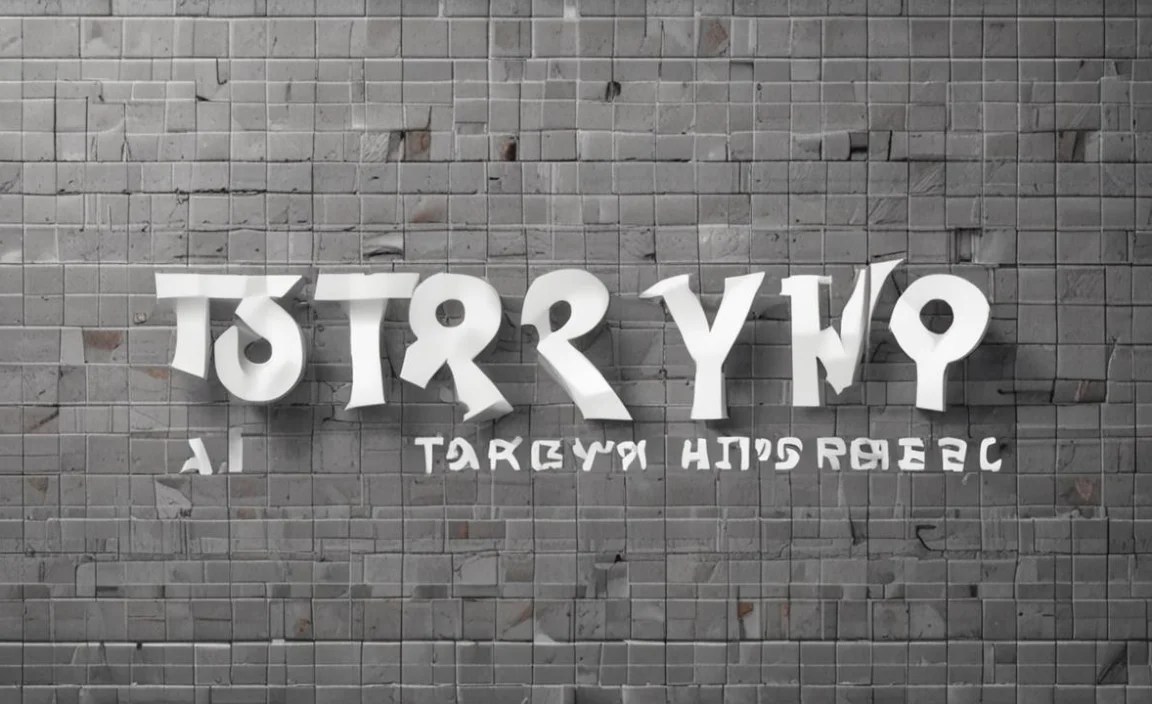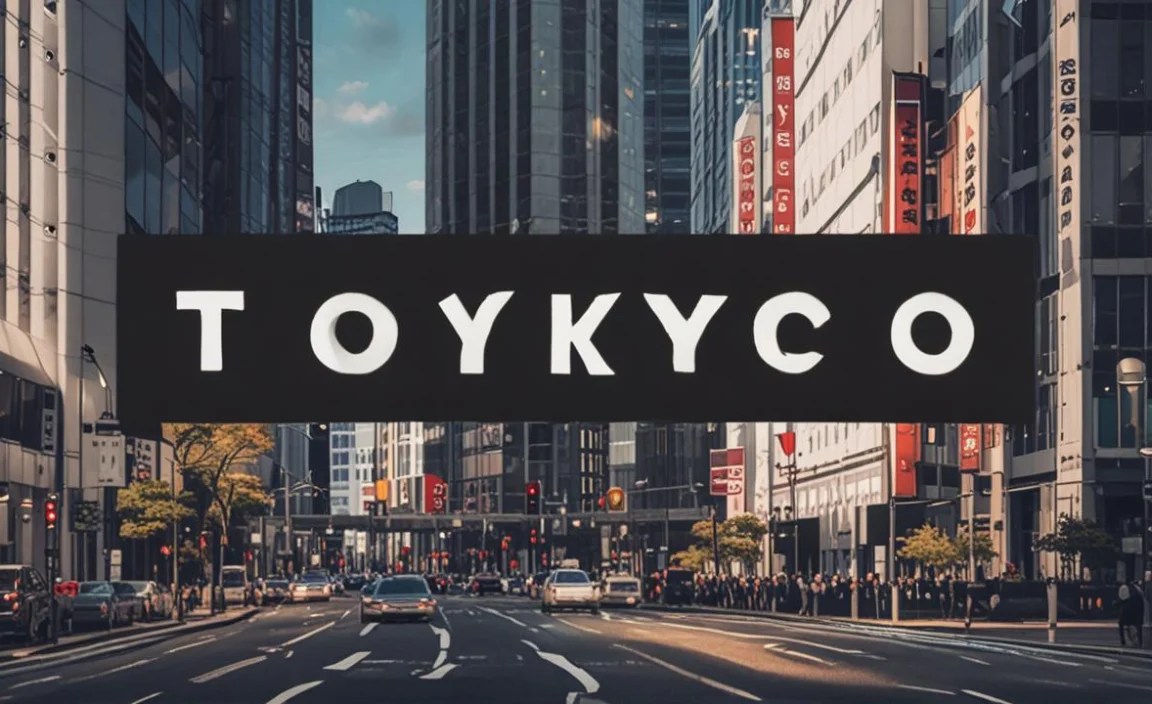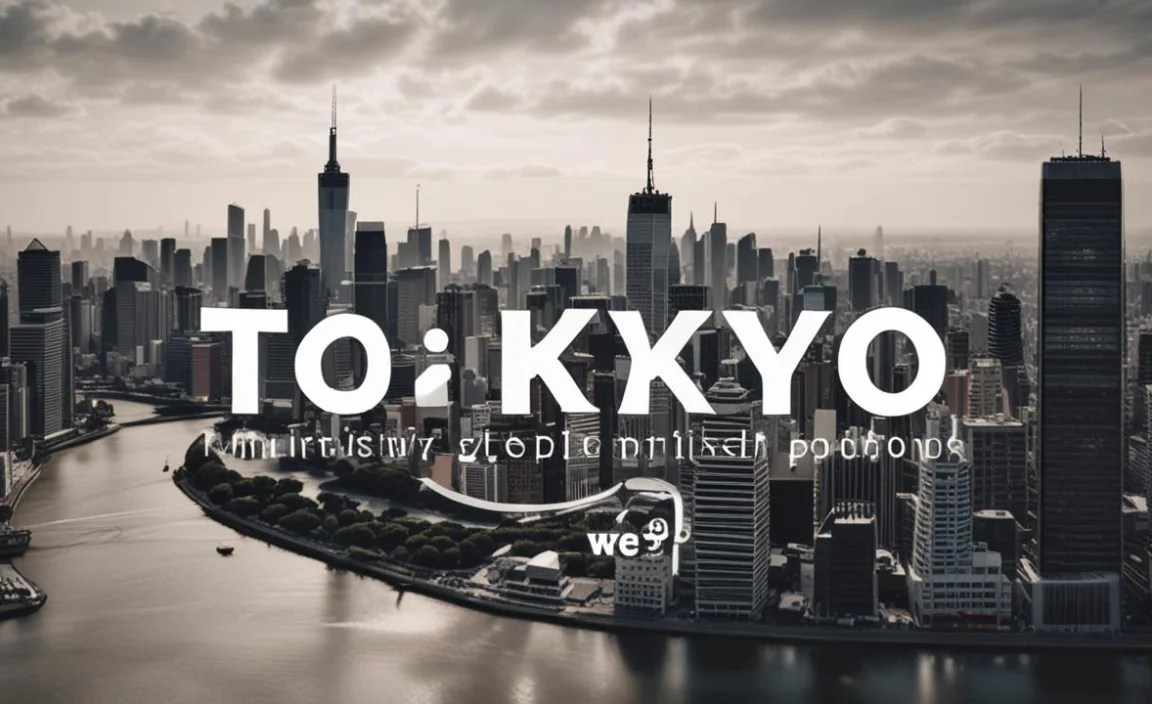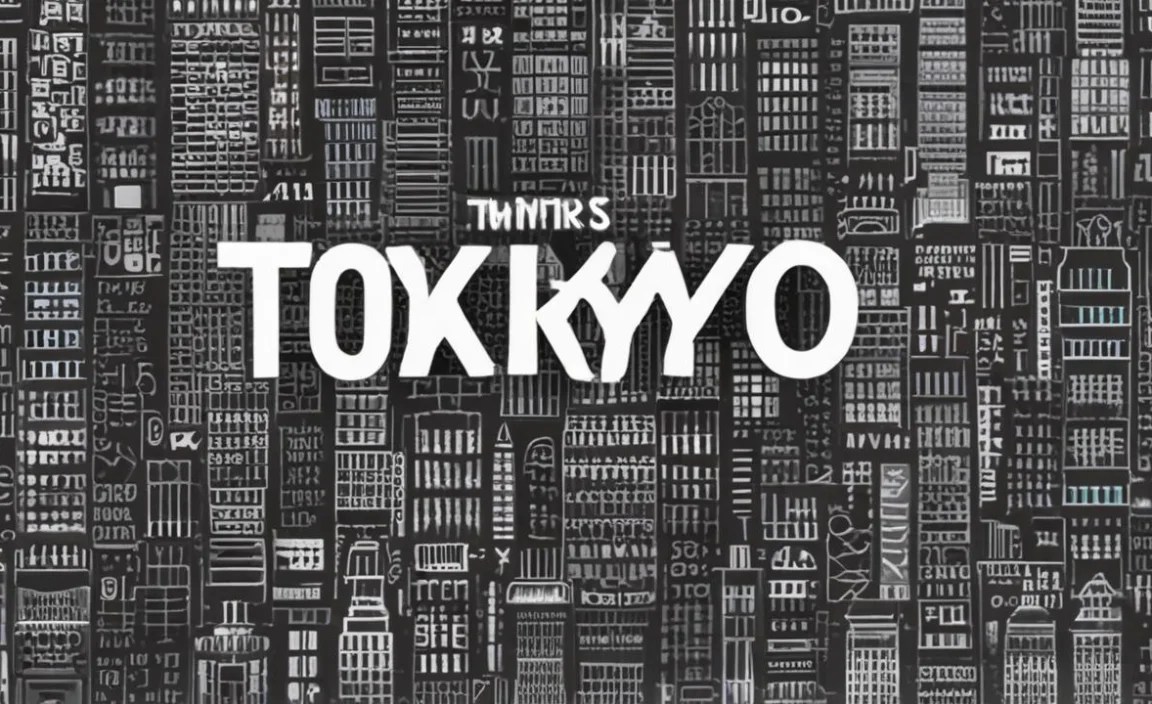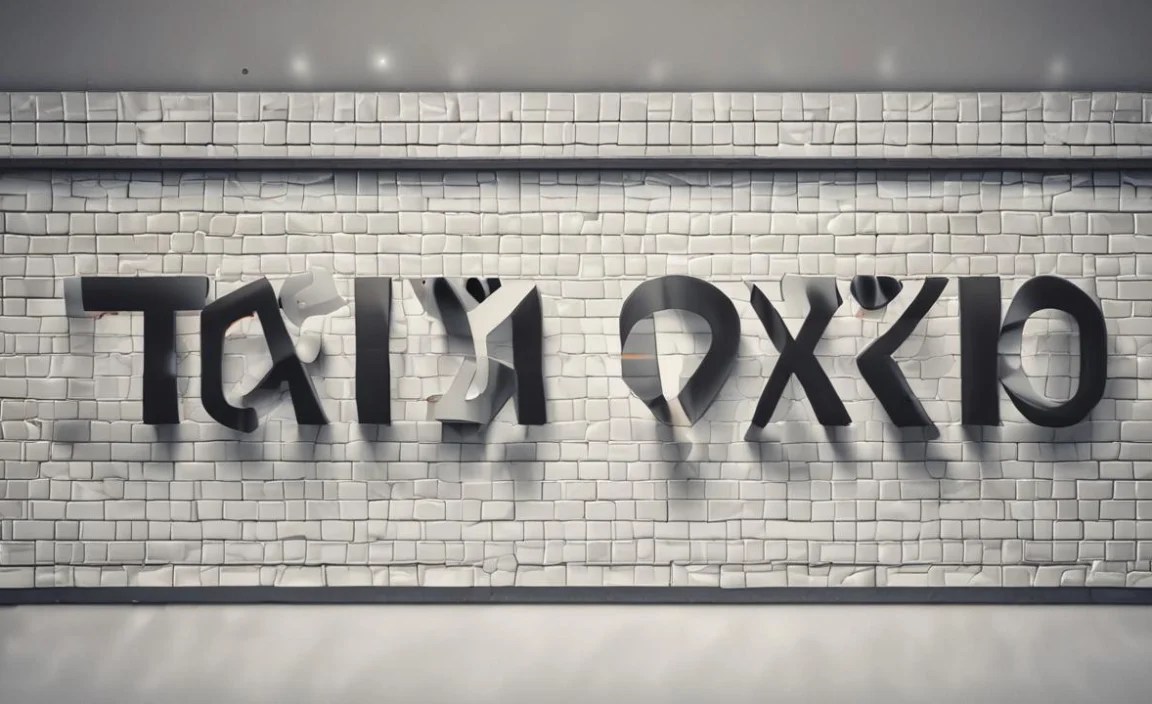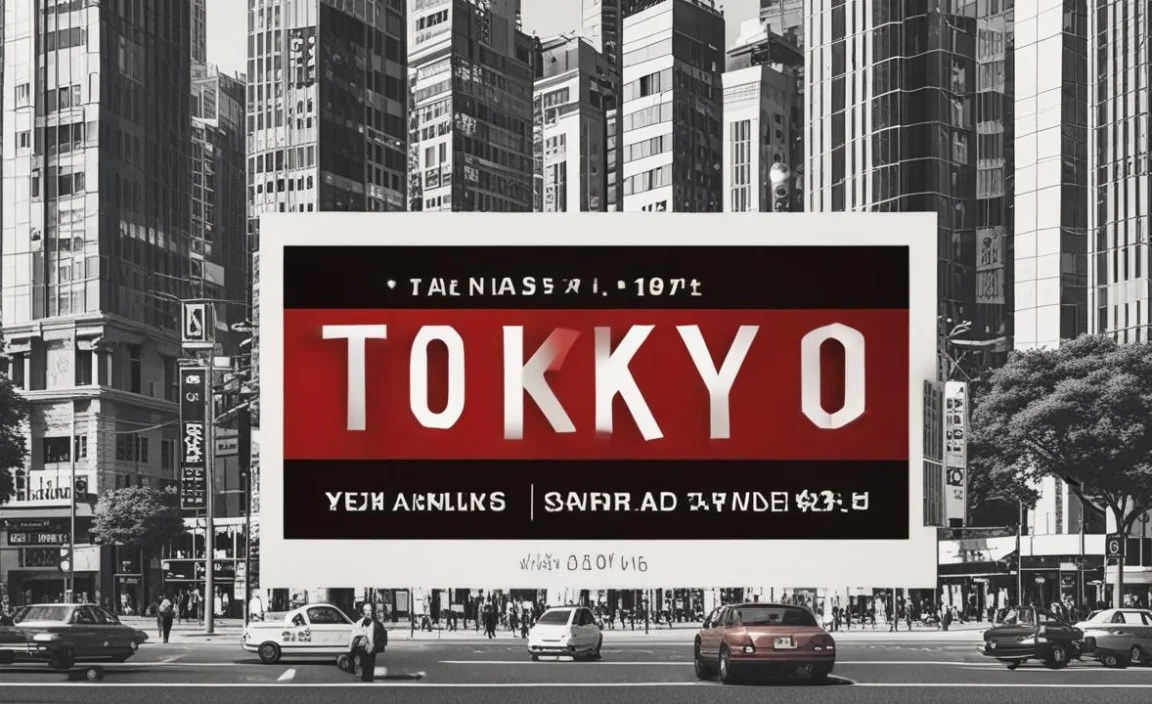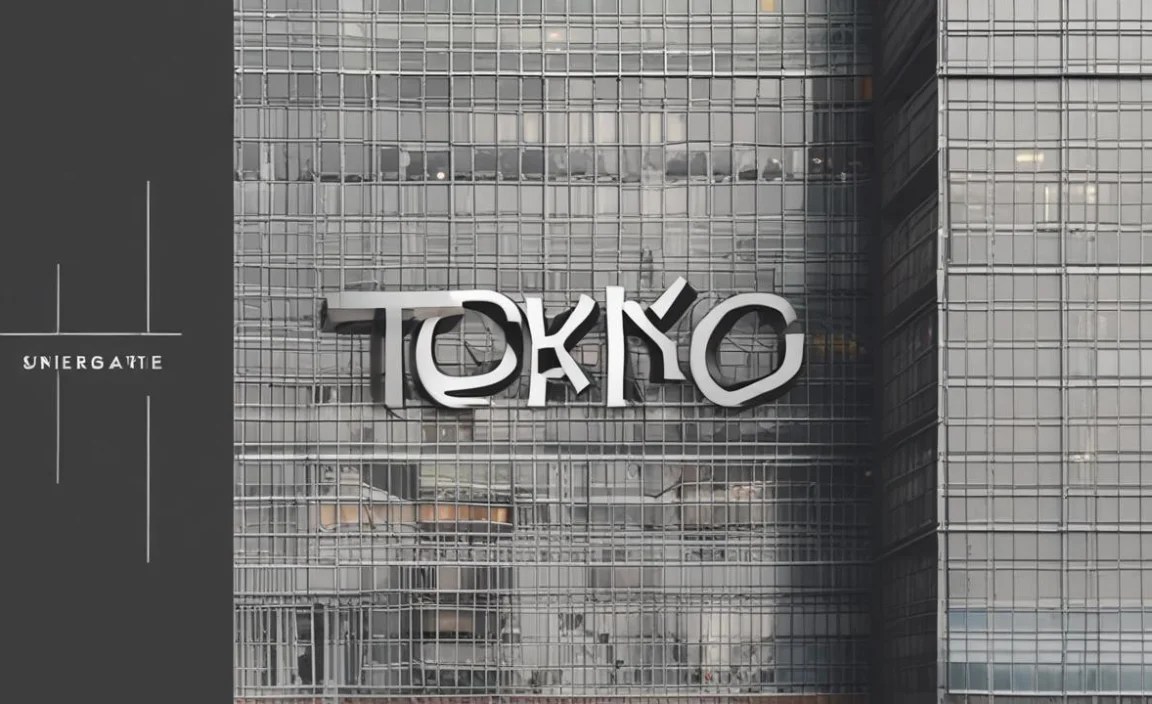
Tokyo Font is a contemporary typeface that blends elegance and modernity, making it a top choice for designers and creatives. Whether you are crafting a brand identity, designing a website, or creating stylish editorial layouts, this font delivers a polished and professional aesthetic. With its clean lines and versatile styles, Tokyo Font ensures readability and sophistication, enhancing both digital and print designs.
Why Choose Tokyo Font?
- Modern and clean aesthetics suitable for all branding needs
- Perfect for headers, captions, and printed materials
- Supports numbers, symbols, and multiple languages
Tokyo Font Family
Tokyo Font is available in different styles, allowing designers to choose the perfect variation:
- Tokyo Regular – A balanced typeface for general use
- Tokyo Dome – Inspired by iconic architecture, ideal for modern designs
- Tokyo Modern – A clean sans-serif variation for a futuristic look
- Tokyo Hand – A handwritten-style font for creative projects
Character Map & Typography Details
| Typeface | Sans-Serif |
Where Can You Use Tokyo Font?
- Logos & Branding – Elevate your brand identity
- Websites & Headers – Improve readability and aesthetics
- Magazine & Editorial – Create elegant and readable layouts
- Product Packaging – Make your products stand out on shelves
- Social Media Graphics – Perfect for quotes, captions, and visual appeal
6.What Are The Best Font Pairings For Tokyo Font?
It pairs well with clean sans-serifs like Helvetica or elegant serifs like Times New Roman.